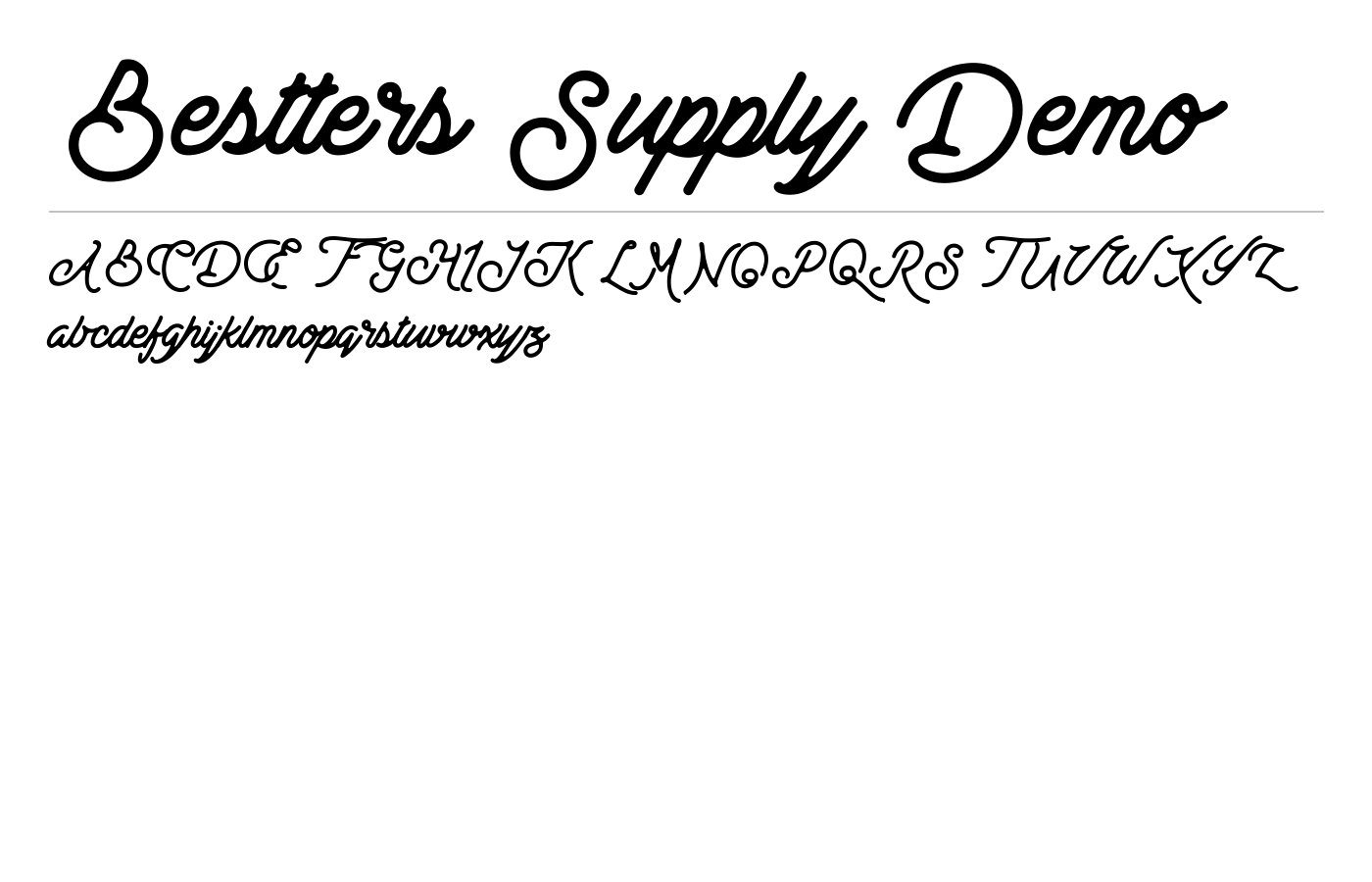
Bestters Supply Demo is a lively, script-style font with a bold and smooth look, featuring connected letterforms and playful curves that create a friendly yet elegant feel. Its consistent weight and rounded strokes make it ideal for branding, packaging, and logos where a personable and stylish touch is desired. This font works best in display settings, adding charm and character to any design that aims to be approachable and memorable.
Bestters Supply Demo Font
About Bestters Supply Demo Font
| Font family | Bestters Supply Demo Font |
| Designer | Burntilldead |